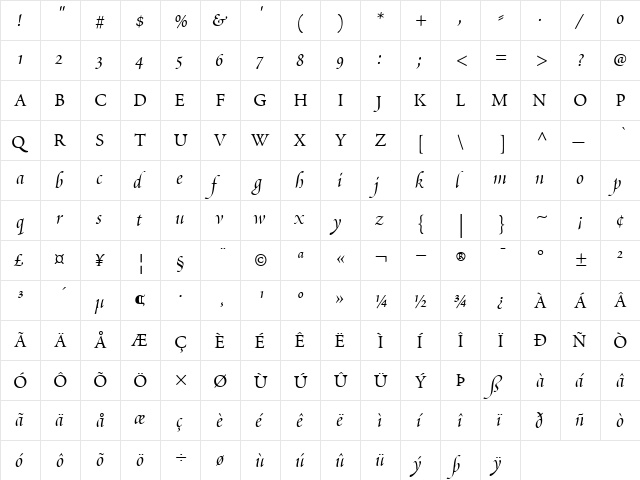
PoeticaChanceryIV RomanItalic
PoeticaChanceryIV takes a measured approach to typography — its balanced proportions and neutral character make it a reliable workhorse for both digital and print work. The slanted form adds forward momentum and visual energy.